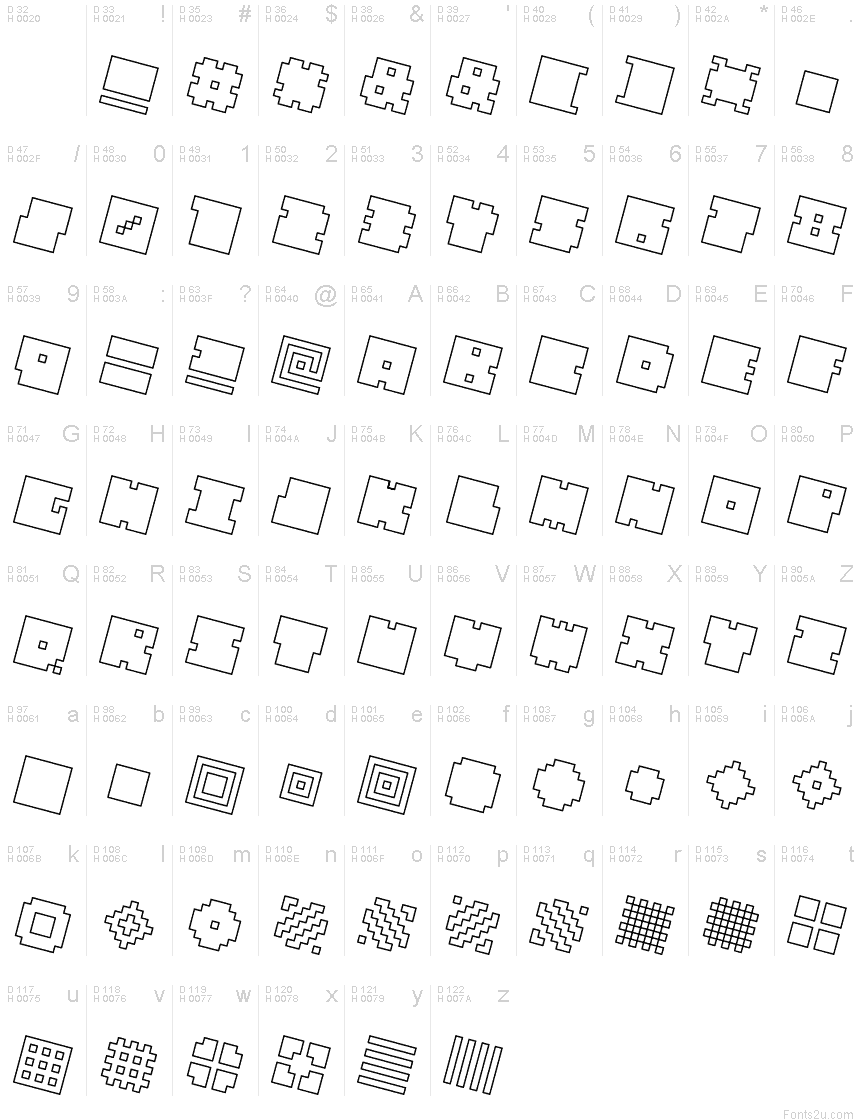
Qube Hollow Italic, credited to B/W Fontworks and Dan Redding, is a free outlined techno display font built from tilted square forms. Its thin contours frame broad hollow interiors, with small rectangular cutouts recurring across the caps. The geometry is blunt and deliberately mechanical.
Game title screens are its strongest setting, since the modular letters resemble blocks or interface tiles. It also suits music posters and arcade merchandise. For tech brands, the squared outlines can become a brand mark.